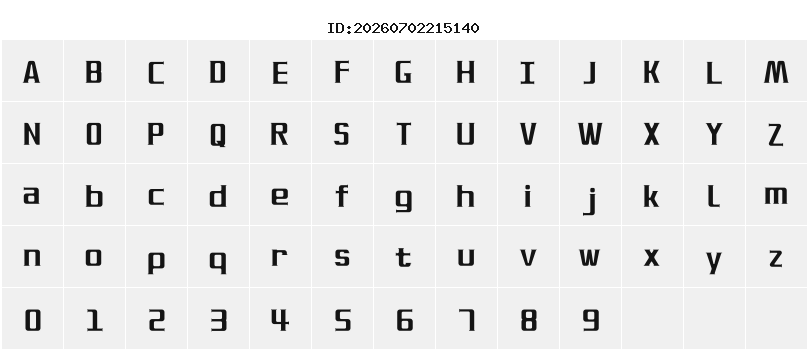
094-上首奥丁体 Preview
• Font Name: 094-上首奥丁体
• Full Font Name: 094-上首奥丁体
• Manufacturer: 上首造字
About 094-上首奥丁体.ttf
094-上首奥丁体.ttf is a modern, elegant sans-serif font designed for ultimate readability and visual harmony. Perfect for branding, headlines, web design, and print materials.